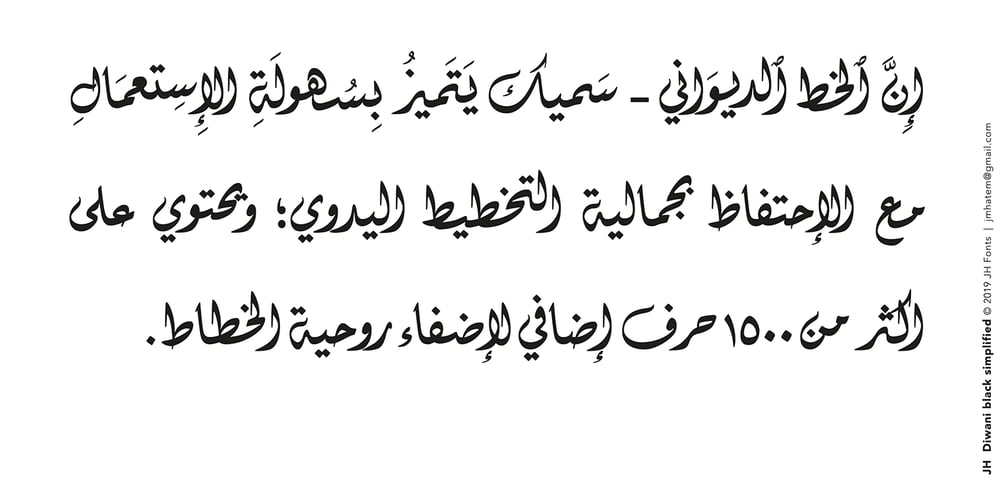
JH Diwani Font Family was designed by Joe Hatem and published by JH Fonts. JH Diwani contains 1 styles and family package options. JH Diwani simplified black is an advanced Arabic font simulating the Diwani Calligraphy with its finest details. Its typical usage: Wedding / greeting cards , headlines, poetry, and books. Please note that Arabic Kashida is not available for this font.